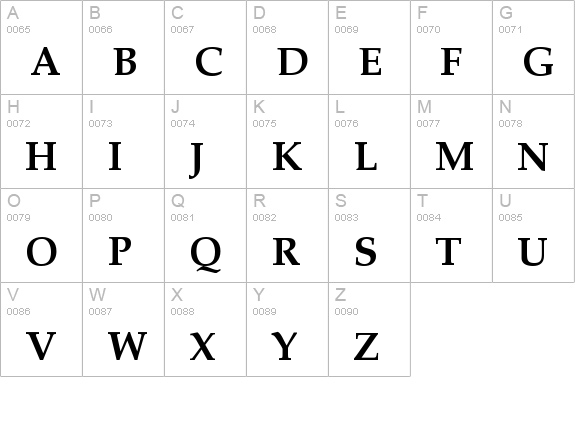
Palton BOLD Font Details
Palton BOLD is a strong, high-contrast variant in the Palton typeface family \xE2\x80\x94 well suited to headlines, attention-grabbing titles, and strong calls-to-action.
Introducing Palton BOLD font, a stunning typeface that exudes confidence and power. With its bold and assertive letterforms, Palton BOLD is perfect for making a statement in any design project. Whether you're creating eye-catching headlines or designing impactful branding materials, this font will instantly grab attention and leave a lasting impression. Palton BOLD font boasts a perfect balance between elegance and strength, making it versatile for a wide range of applications. Its clean and sharp edges highlight the meticulous attention to detail, making every character stand out with precision and clarity. But what sets Palton BOLD apart is its unique feature - it's free! That's right, this incredible font is freely available to download at FontsMarket.com. Now, you can enhance your creative projects without any cost, allowing you to unleash your creativity without any constraints. The versatility of Palton BOLD font extends to various design styles, from modern and sleek to bold and impactful. It is the perfect choice for advertising campaigns, logo designs, product packaging, posters, and everything in between. Its bold presence on any medium guarantees maximum visibility and impact, leaving a lasting impression on your audience. Palton BOLD font is designed with utmost care and attention to detail, ensuring legibility at any size. Its strong and distinct characters make it suitable for both digital and print applications, providing clear and readable text in any context. So why wait? Download Palton BOLD font now from FontsMarket.com and let your designs speak volumes. With its boldness, elegance, and the added bonus of being free, Palton BOLD is the ultimate choice for any design project that demands attention and impact.